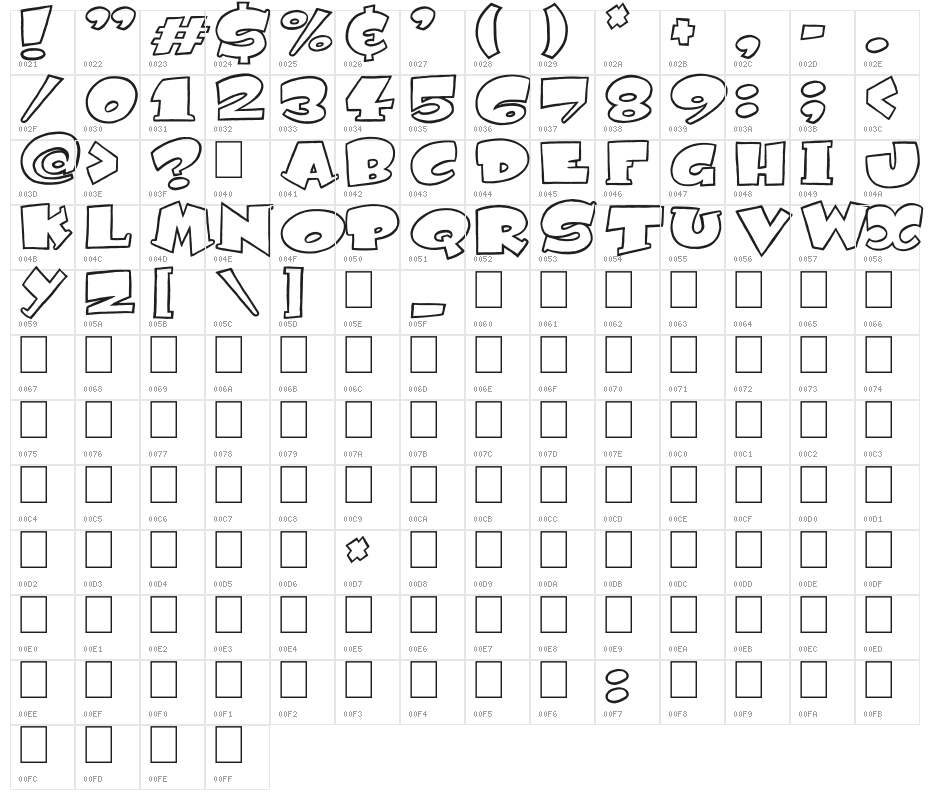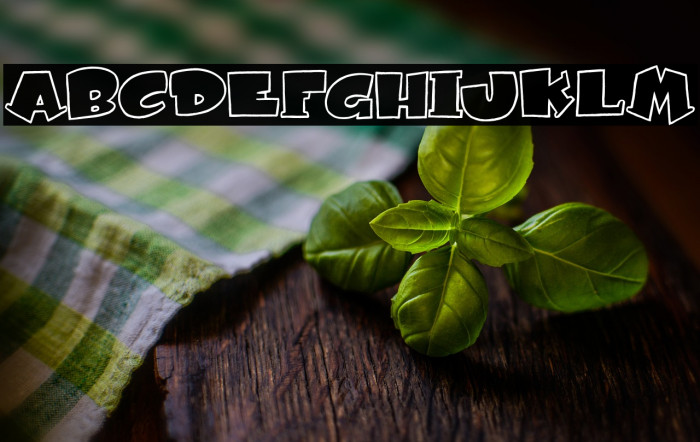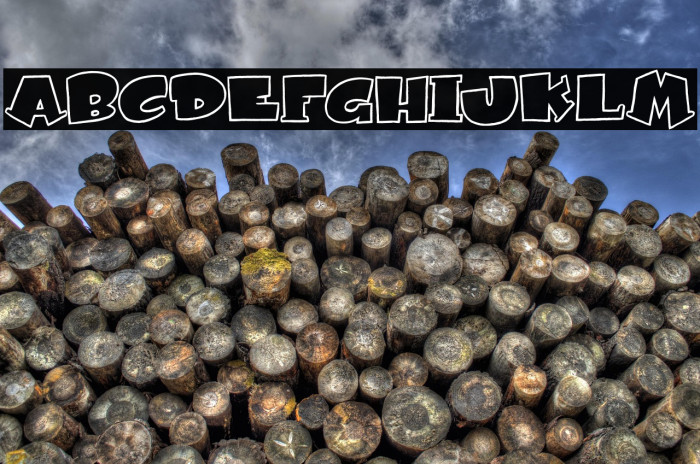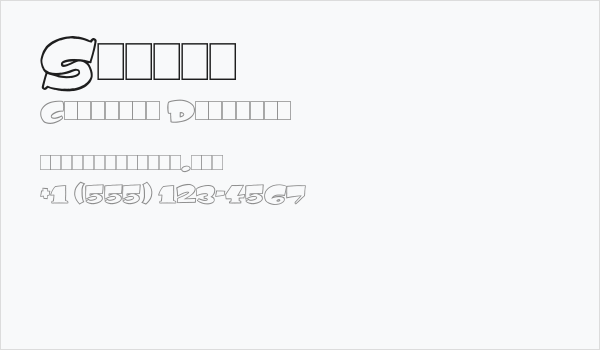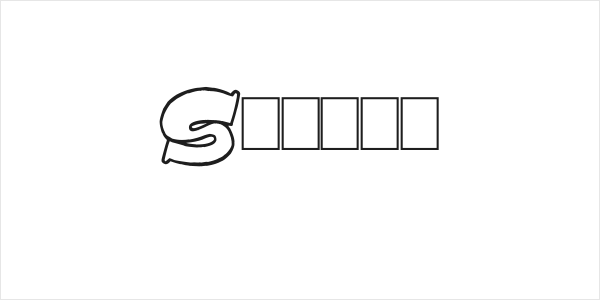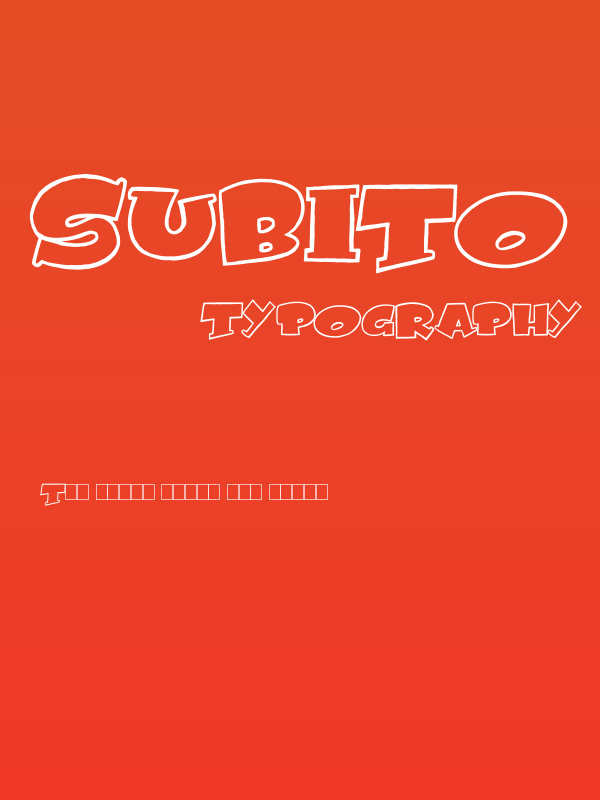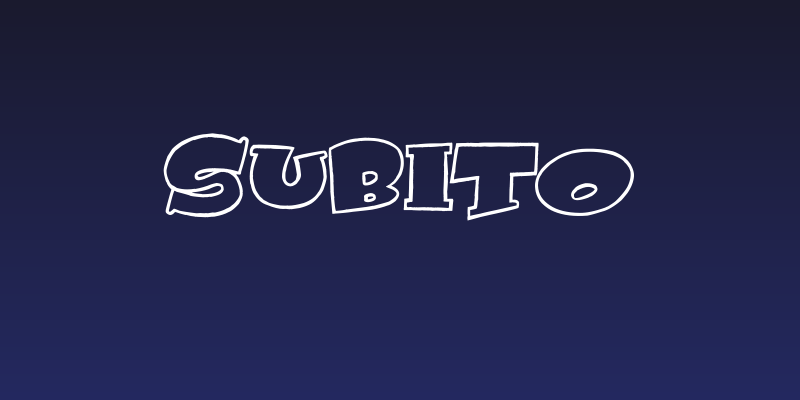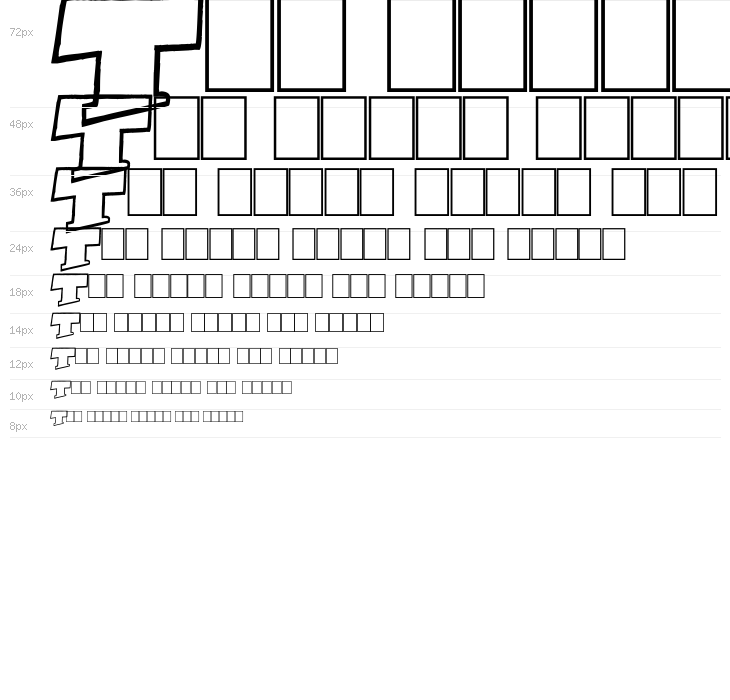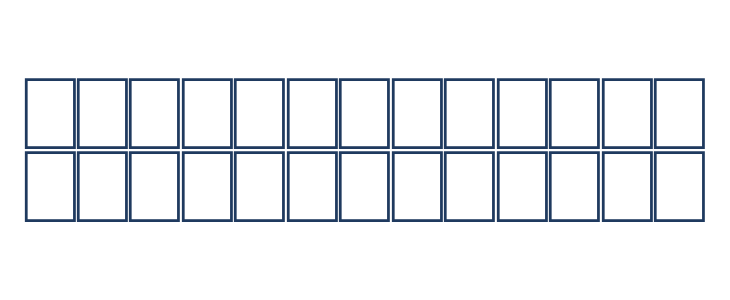
Subito Font
Subito Description
This font features a playful and bold design with exaggerated, cartoon-like characteristics. Each letter is crafted with a thick, uneven stroke that gives it a dynamic and energetic appearance. The characters have a slightly irregular baseline, enhancing the whimsical feel. The font is highly decorative, making it ideal for eye-catching designs. Its boldness and unique style make it stand out, perfect for projects that require a fun and engaging visual element. The numbers and special characters maintain the same playful style, ensuring consistency across all text elements.
| Overall Style | Playful, Cartoonish, Decorative |
| Proposed Projects | Ideal for children's books, comic strips, playful branding, and party invitations. |